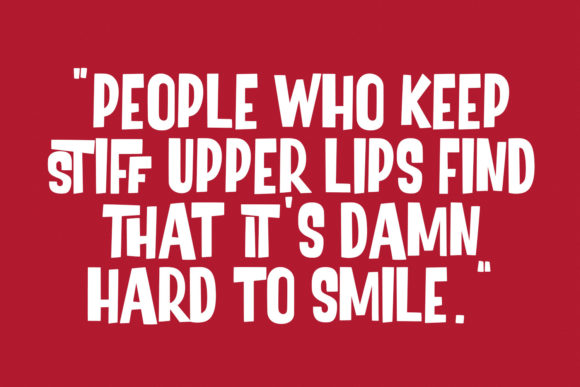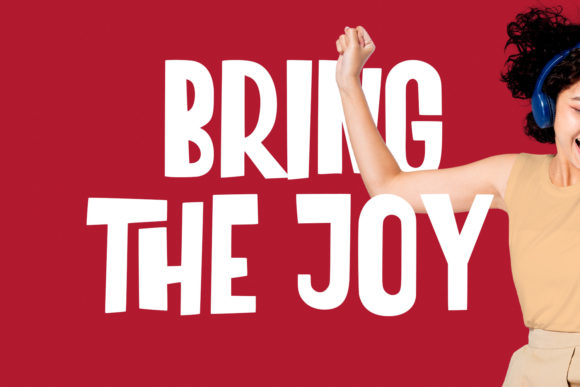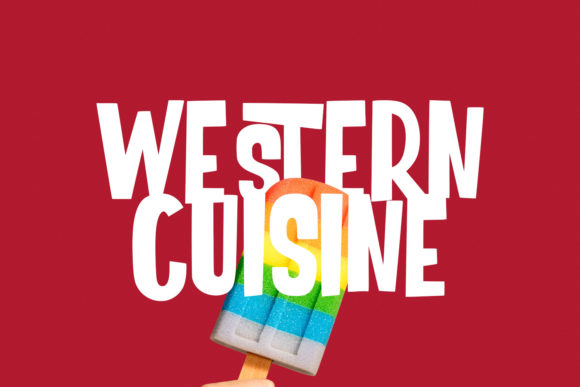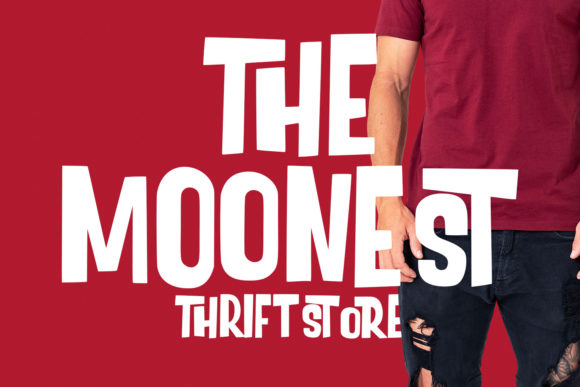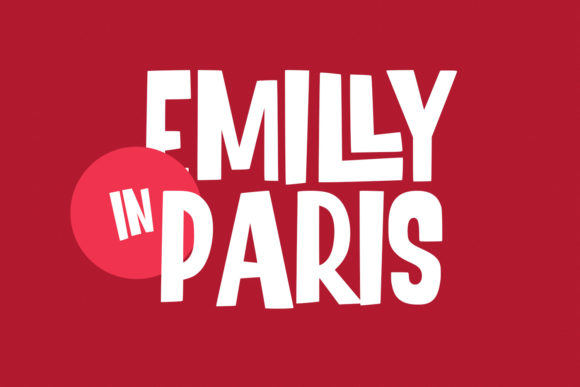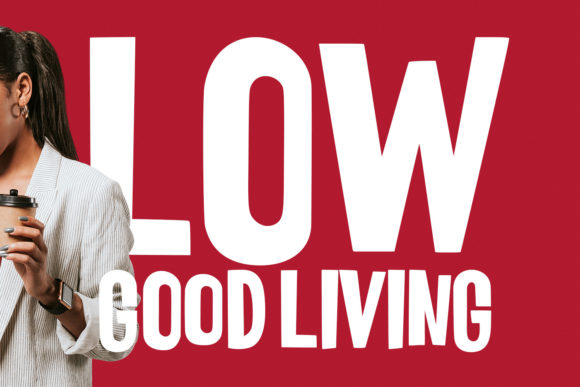
Introduction to Los Katos Font
Have you ever found yourself staring at a blank canvas, struggling to bring your creative vision to life? You’re not alone. As designers, we’ve all been there. But what if I told you that the perfect font could be the missing piece to unlocking your full creative potential? Enter the Los Katos Font, a high-quality display font that’s sure to elevate any design project.
With its bold and cool design, the Los Katos Font is the perfect addition to any font library. Whether you’re working on a free download project or a paid design resource, this font has the potential to take your creations to the next level. Its versatility makes it an ideal choice for a wide range of creative projects, from logos to social media graphics.
Key Features of Los Katos Font
- High-quality font design ideal for creative projects, offering a unique and stylish look.
- Comes with a transparent background, allowing for easy integration with various design elements.
- Includes multiple font styles, including bold and regular, to cater to different design needs.
- Designed with a high resolution of 300 DPI, ensuring crisp and clear typography.
- Perfect for use in various creative projects, such as graphic design, typography, and digital art.
Honest Review: Los Katos Font
As a designer, I’m always on the lookout for high-quality design resources to elevate my creative projects. Recently, I stumbled upon the Los Katos Font, a free download that has piqued my interest.
What works well with this font is its unique, hand-drawn style, which adds a personal touch to any design. The transparent background allows for seamless integration with other design elements, making it a great addition to any creative project. The font is also highly customizable, offering a range of styles and weights to suit different design needs.
Some limitations of the Los Katos Font include its limited character set and lack of support for certain languages. Additionally, the font may not be suitable for large-scale commercial use, as it is a free download and may not be compatible with all design software.
Overall, I’m impressed with the Los Katos Font’s potential for adding a touch of personality to creative projects. While it may have some limitations, its unique style and high quality make it a valuable design resource.
- Unique, hand-drawn style
Tips for Getting the Most Out of Los Katos Font
Experiment with different font sizes, colors, and styles to create a unique look. Use the font in combination with other design elements to create a cohesive design. Take advantage of the font’s transparent background to create visually appealing graphics.
Common Use Cases for Los Katos Font
Los Katos Font is ideal for creative projects, such as graphic design, branding, and digital art. It’s also suitable for use in presentations, documents, and social media graphics. With its high quality design and transparent background, Los Katos Font is a valuable design resource for any project.